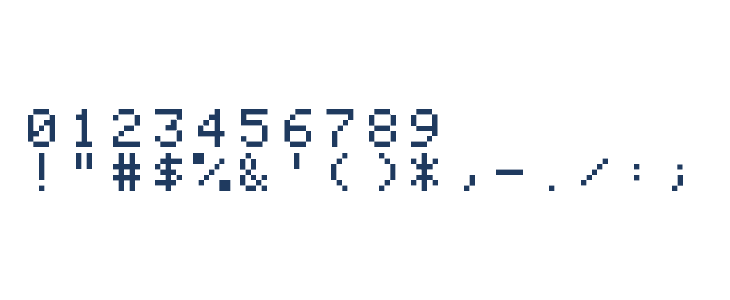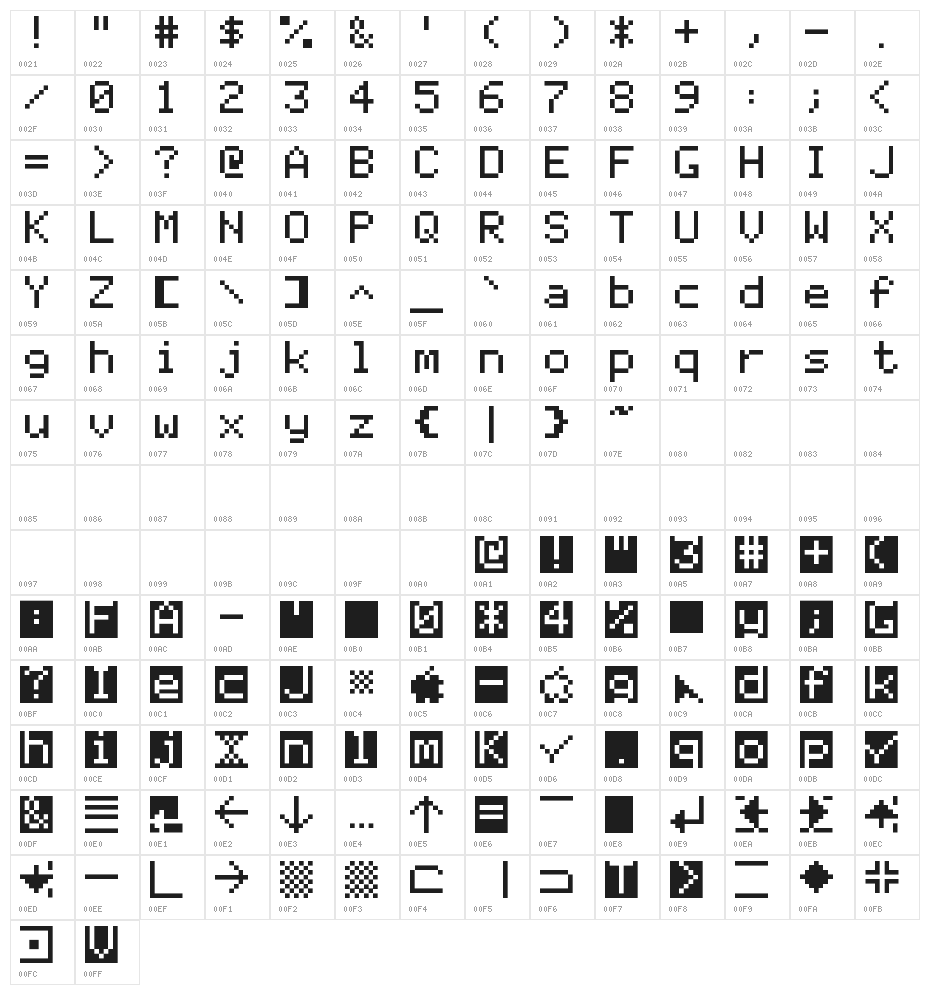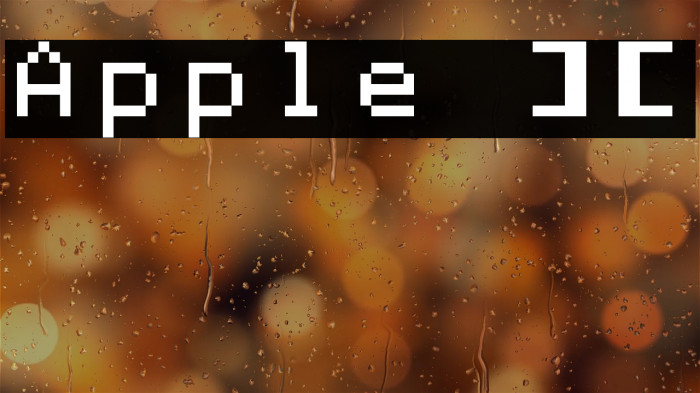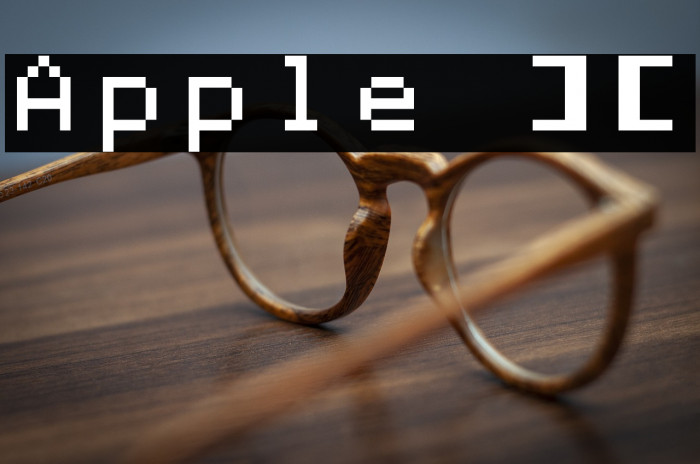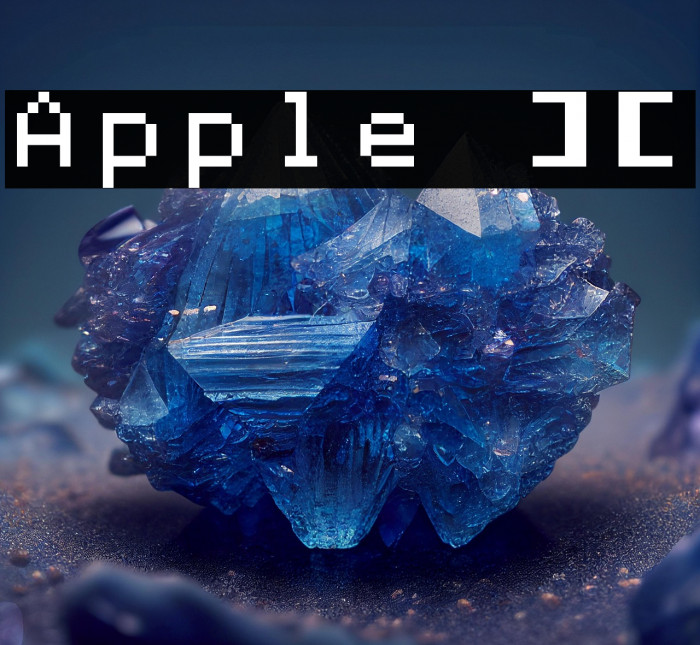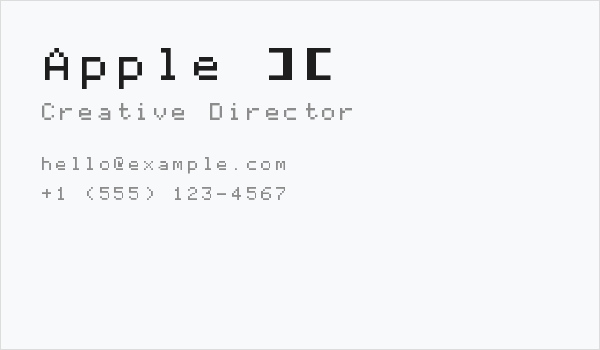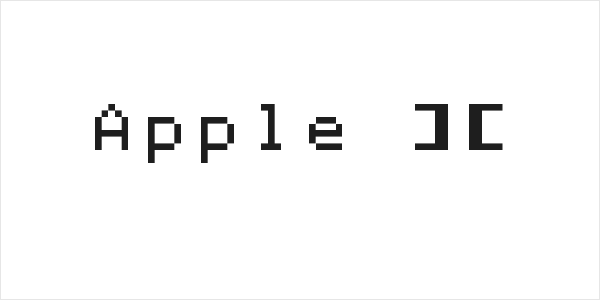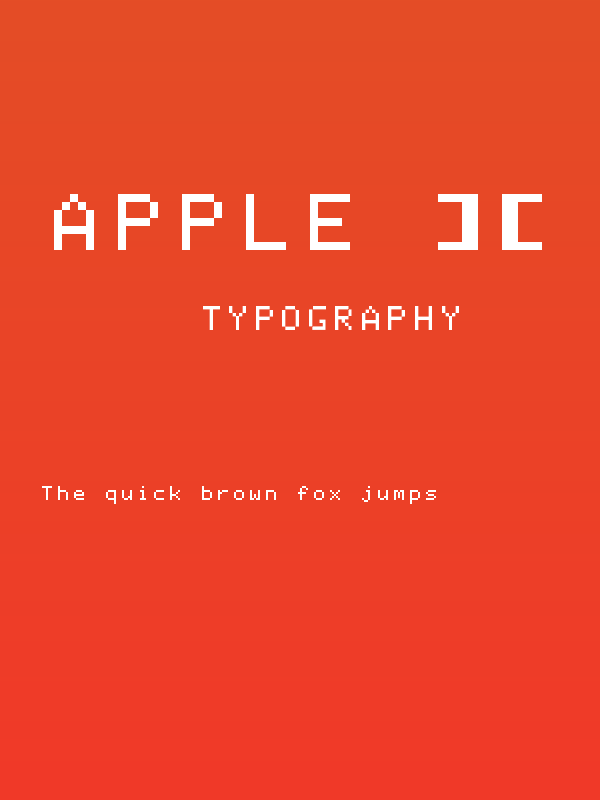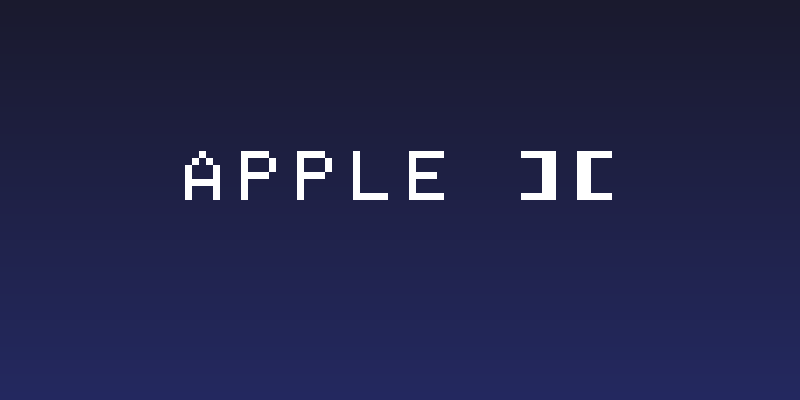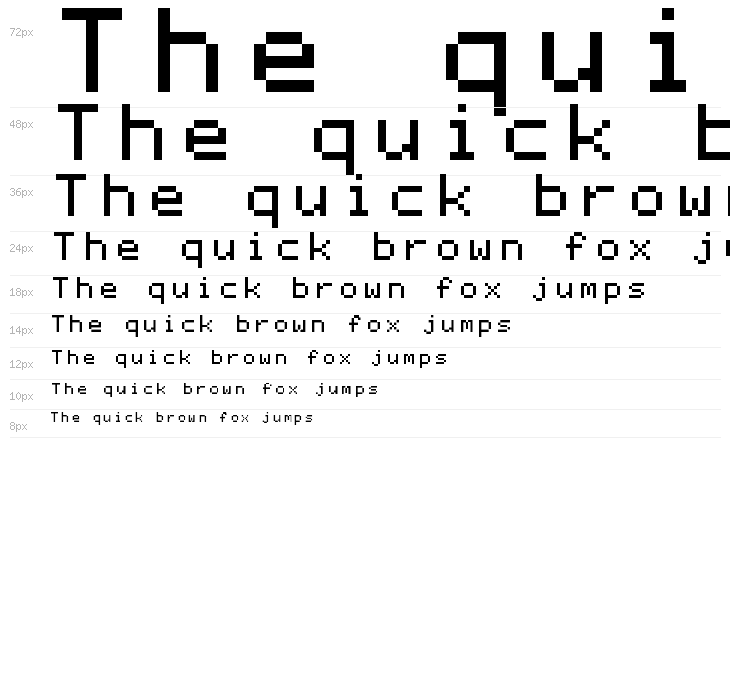
Apple ][ Font
Apple ][ Description
This font is a pixelated, monospaced typeface that evokes a retro, digital aesthetic reminiscent of early computer screens and video games. Each character is constructed from a grid of pixels, giving it a blocky and geometric appearance. The uniformity in character width ensures a consistent and structured look, making it ideal for coding environments or designs that require a vintage digital feel. The uppercase and lowercase letters maintain a similar height, enhancing readability in small sizes. The numerals and special characters are clearly defined, adhering to the same pixelated style, which adds to the cohesive visual identity of the font.
| Use Case | Logos, Headlines, Digital Art |
| Proposed Projects | Ideal for retro video game designs, coding environments, digital art projects, and any design requiring a vintage tech vibe. |